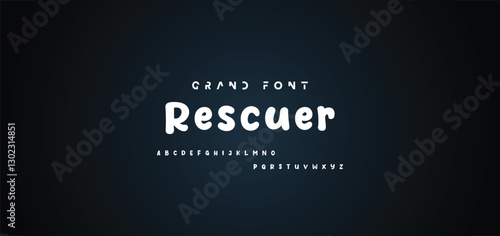
Comic book alphabet. Retro cartoon comic book graphic font elements, alphabet letters and numbers symbols vector illustration set. Creative script with letter and numeral elements. Pop art design